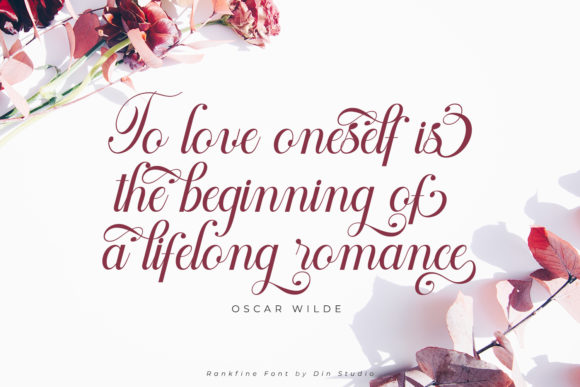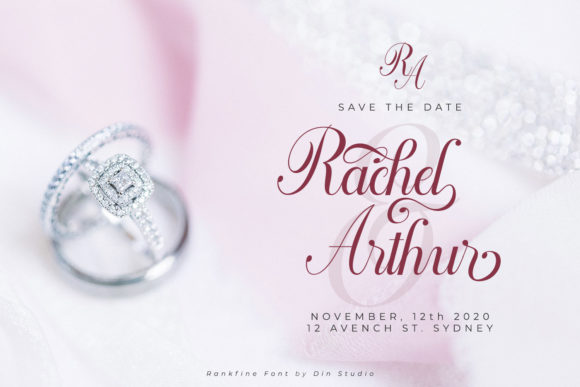
Rankfine Font
db-ku.com - Script & Handwritten -- Rankfine is an elegant font with natural and handwritten style. It brings a modern and attractive typeface. Made for any professional project branding. It is the best for logos, branding, wedding, quotes and more.